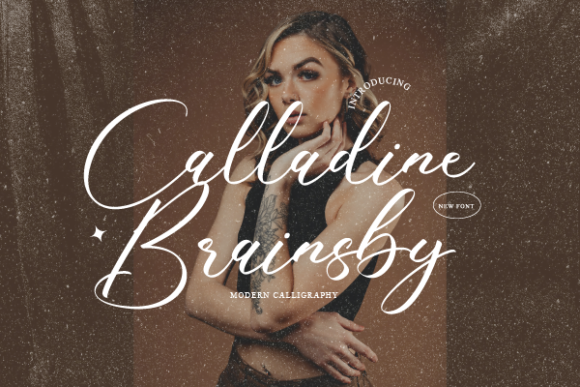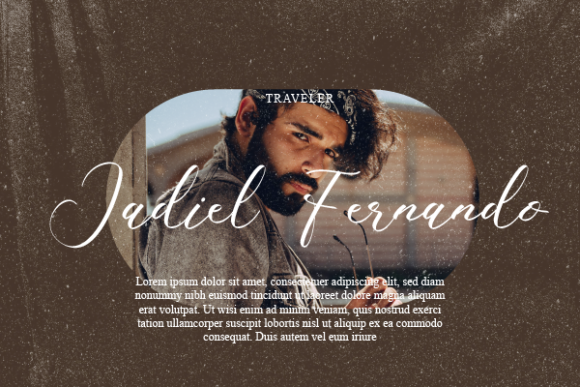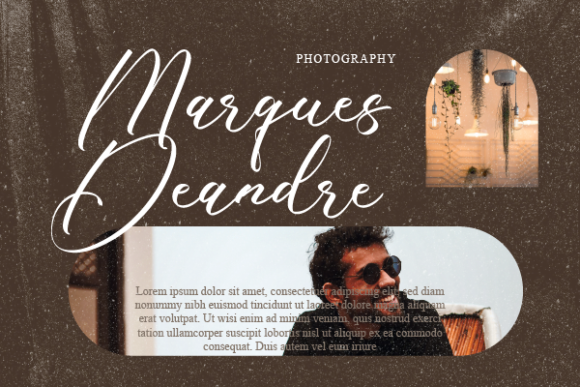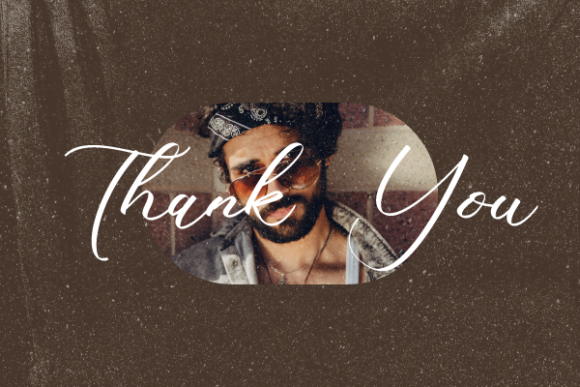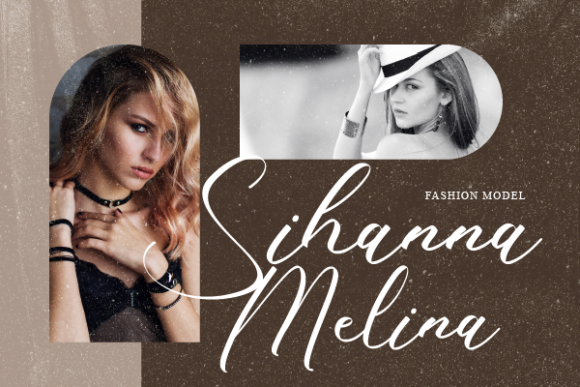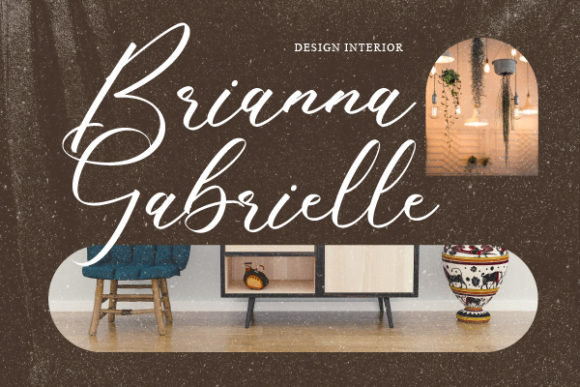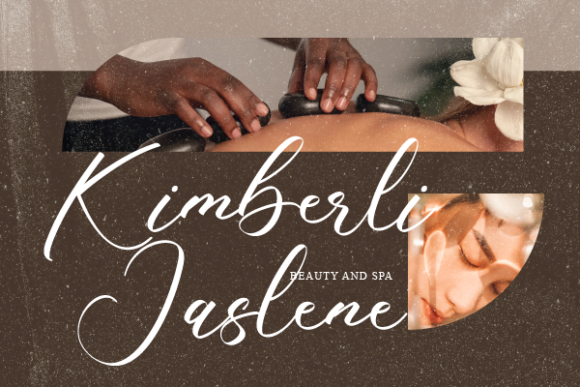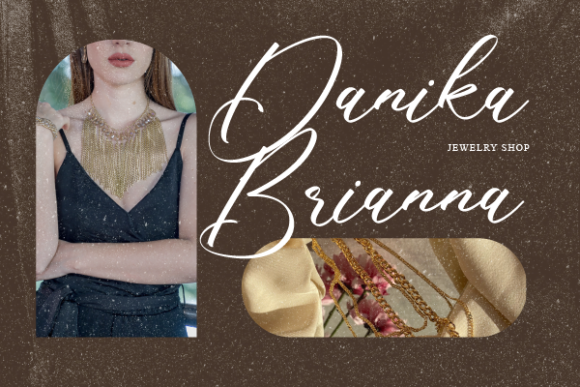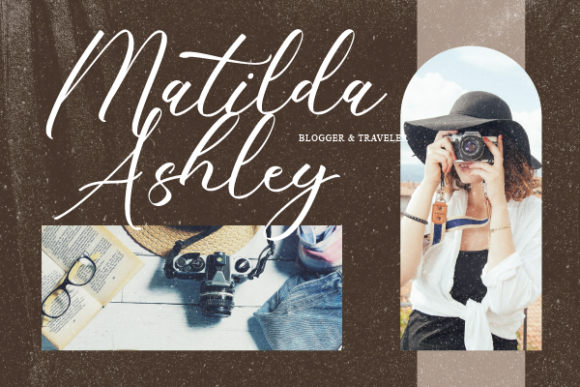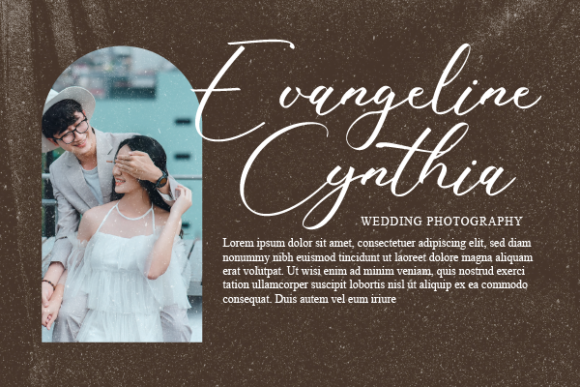
Calladine Brainsby Font
About Calladine Brainsby Font
“Calladine Brainsby” emerges as a font that exudes sweetness and cursive elegance. With its gentle and flowing nature, it becomes a delightful addition to a wide array of design concepts. This font’s inherent charm will grace your projects with a joyful and romantic touch, infusing them with an air of enchantment.
Imagine “Calladine Brainsby” as a brush that sweeps across the canvas with grace and finesse, leaving behind a trail of delicate strokes that form an exquisite dance of beauty. Its cursive elegance and gentle curves elevate your projects, transforming them into visual treasures that radiate with joy and romance. As you integrate this font into your creations, you’ll embark on a journey where your concepts evolve into captivating visual narratives.
Beyond its visual allure, “Calladine Brainsby” captures an essence of authenticity and emotional resonance. Its handwritten nature adds a personal touch, turning your designs into more than just visuals – they become expressions of sentiment and artistic finesse.
“Calladine Brainsby” stands as a versatile companion in your design endeavors. Its adaptability ensures seamless harmony with various styles, themes, and intentions. Whether you’re seeking to add a touch of sweetness to wedding invitations, infuse romance into greeting cards, or enhance the charm of your creative projects, this font amplifies the resonance of your message.
In a world where design speaks volumes through emotions and aesthetics, “Calladine Brainsby” becomes your tool for crafting designs that evoke feelings and leave a lasting impact. Let its sweet cursive strokes be the artistic flourishes that enhance your creations, infusing them with a touch of joyful romance. Embrace the enchanting allure of “Calladine Brainsby” and watch as it transforms your projects into captivating showcases of artistic excellence, resonating deeply with all who engage with them.